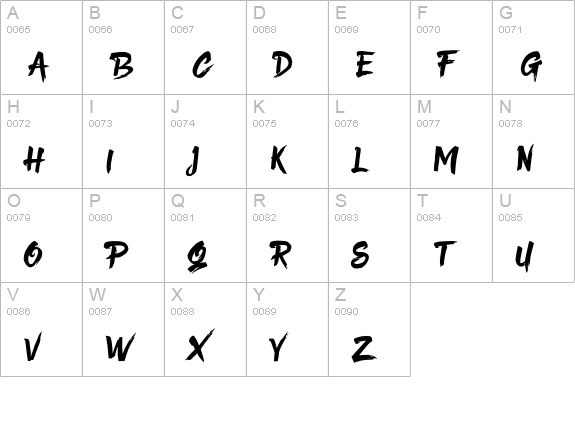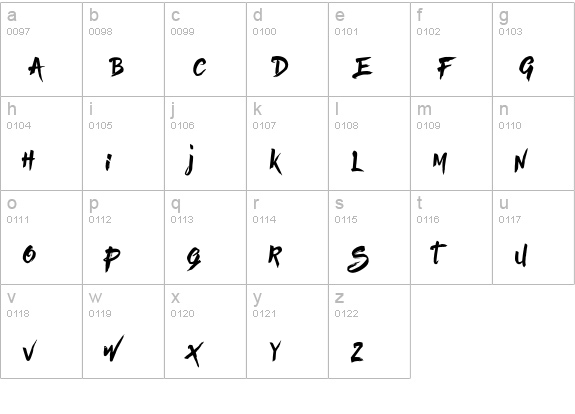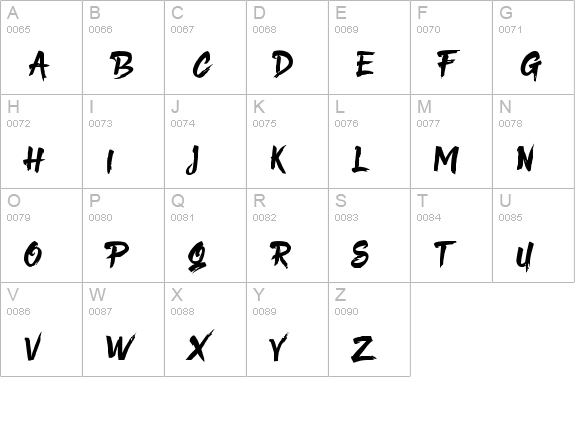
Hefalo Brush Font Details
Introducing Hefalo Brush font, a stunning display typeface that exudes elegance and modernity. With its handcrafted brush strokes and unique flair, Hefalo Brush is the perfect choice for adding a touch of sophistication to your designs. This versatile font is ideal for a wide range of projects, from branding and packaging to invitations and social media graphics. What makes Hefalo Brush font even more appealing is that it is available for free download at FontsMarket.com. Yes, you read that right - this premium quality font can be yours at no cost! Don't miss out on the opportunity to elevate your creative projects with the beauty and charm of Hefalo Brush font. Download it today and let your creativity soar.